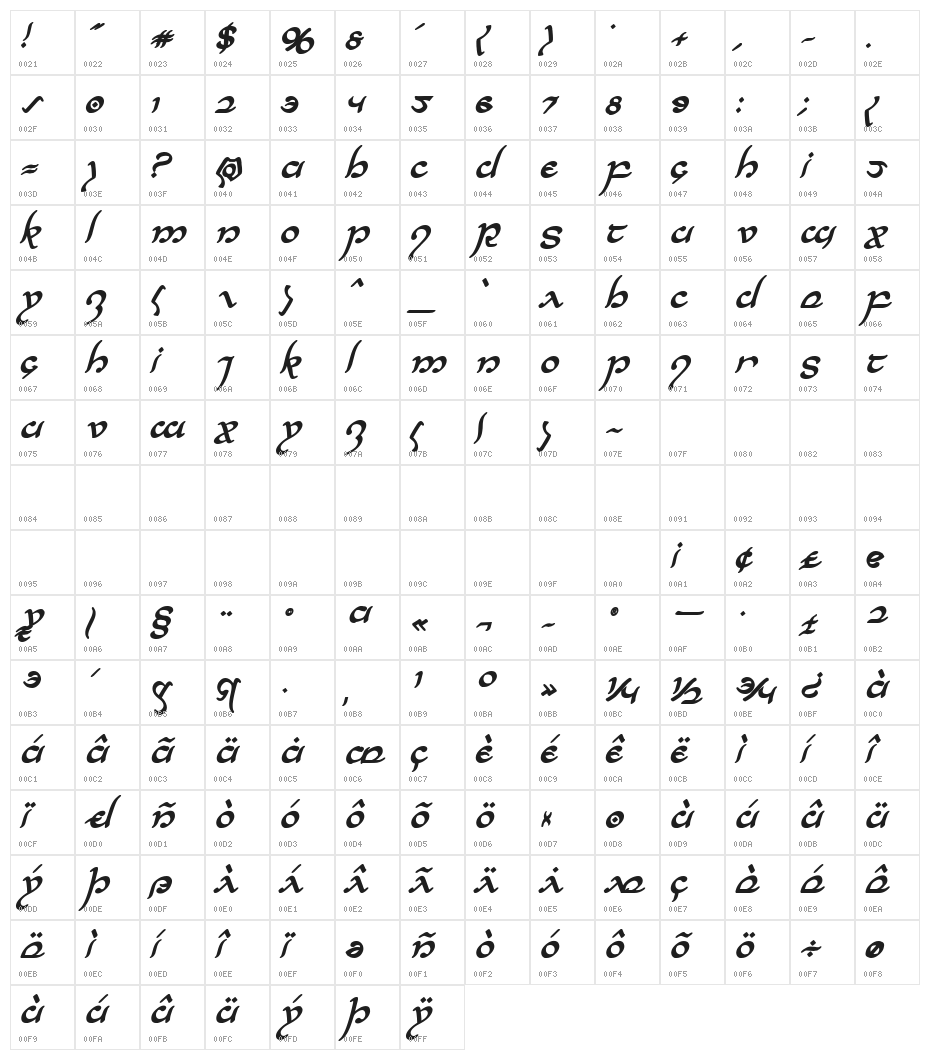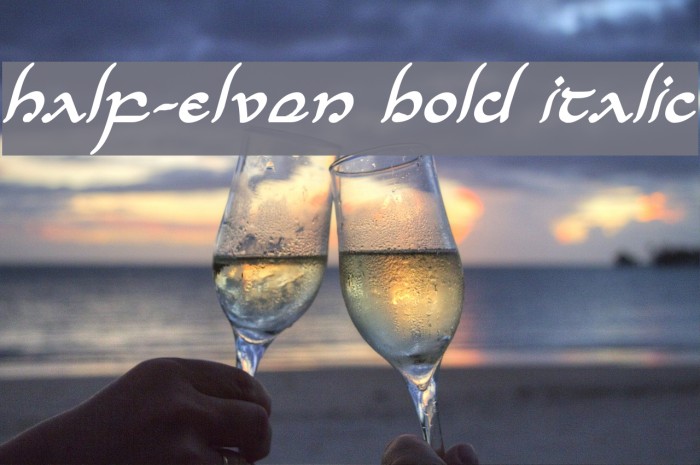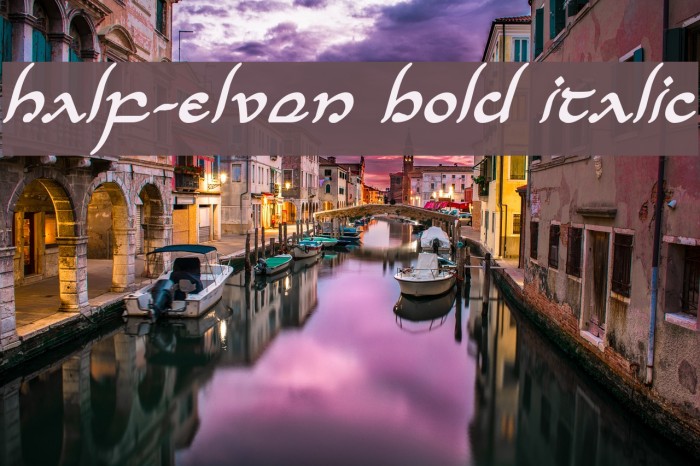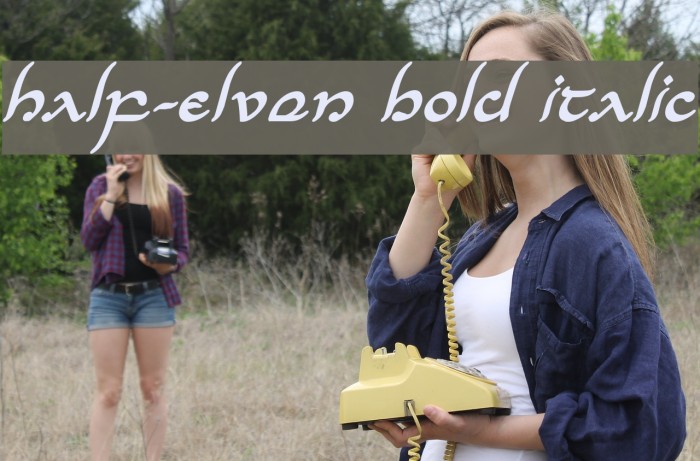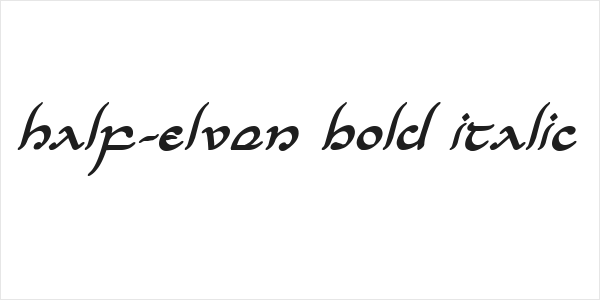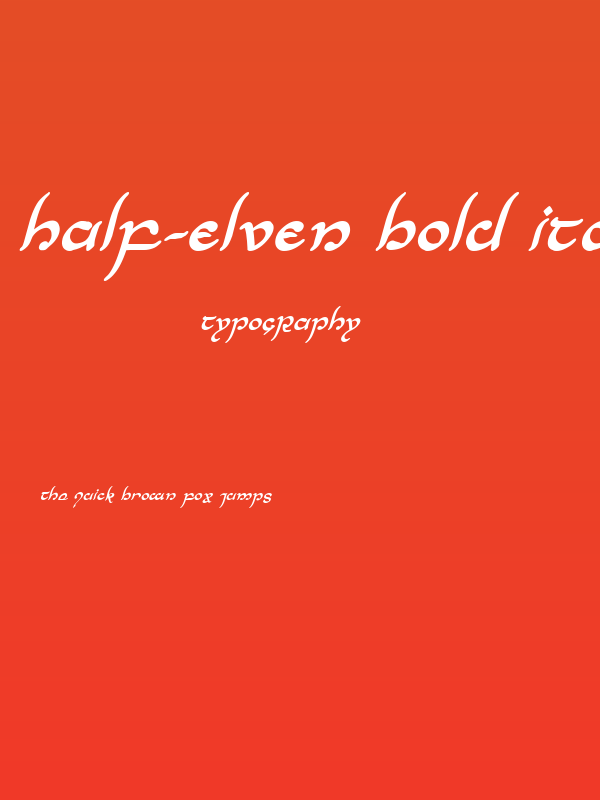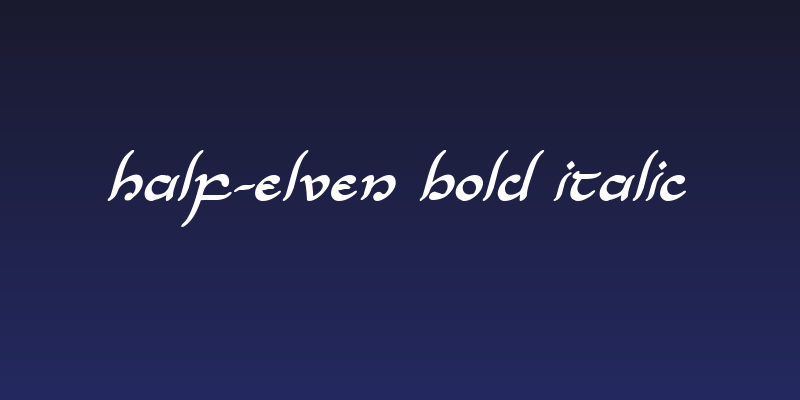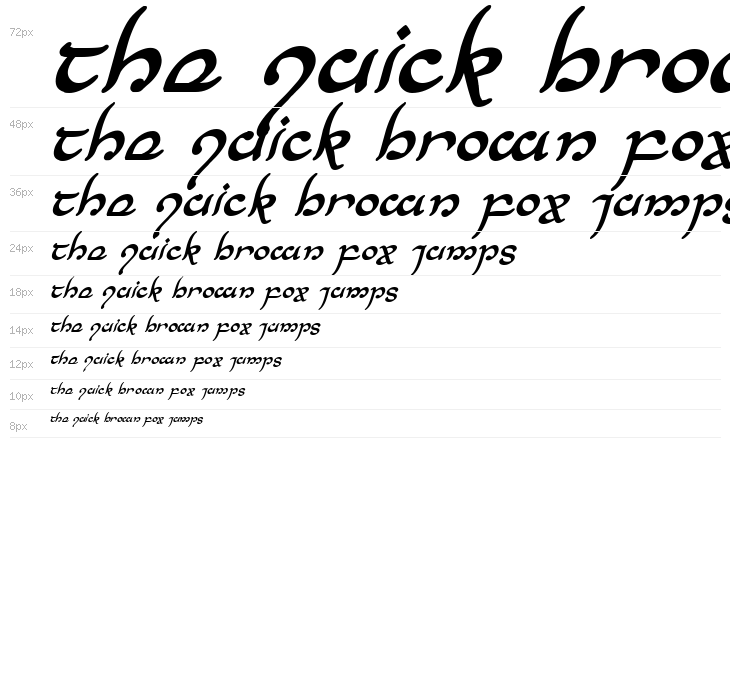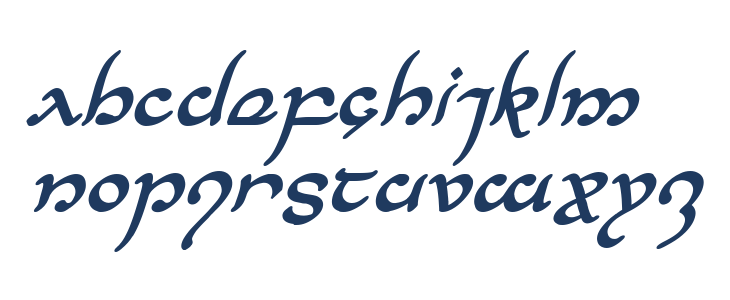
Half-Elven Bold Italic Font
Half-Elven Bold Italic Description
This font features a unique blend of elegance and fantasy, with a flowing, cursive style that evokes a sense of mysticism and enchantment. The characters are bold and italicized, giving them a dynamic and expressive appearance. The strokes are thick and consistent, providing a strong visual impact. The overall design is reminiscent of calligraphic scripts, with smooth curves and pointed edges that add a touch of sophistication. The numbers and special characters maintain the same stylistic elements, ensuring a cohesive look across all glyphs.
| Use Case | Headlines, Logos, Titles |
| Proposed Projects | Ideal for fantasy-themed projects, book covers, game titles, or any design requiring an enchanting and elegant touch. |